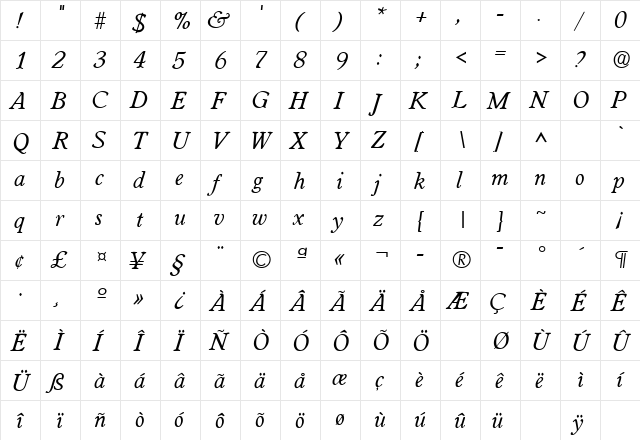
Worcester Italic
Design Context for Worcester Typeface
Worcester is a composed and adaptable typeface that performs quietly and consistently across a wide range of design contexts. Its italic angle brings a sense of urgency and motion to the letterforms.
Pro Tip: Try Worcester for annotation and caption copy alongside an upright companion — the contrast in angle creates a dynamic but ordered typographic system.